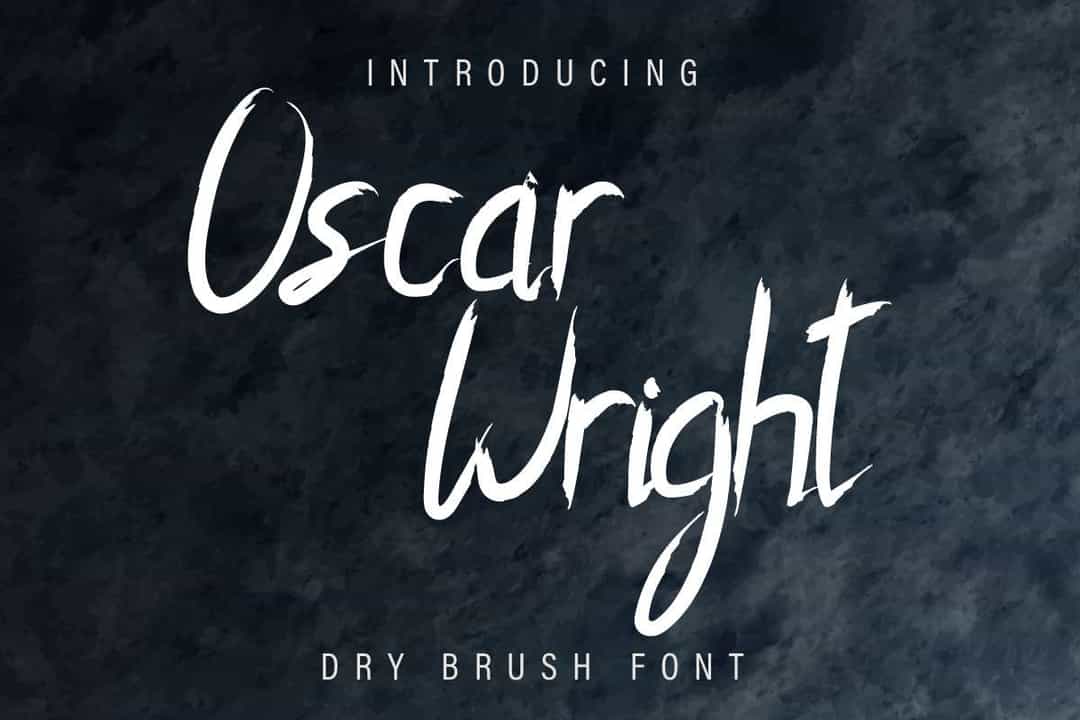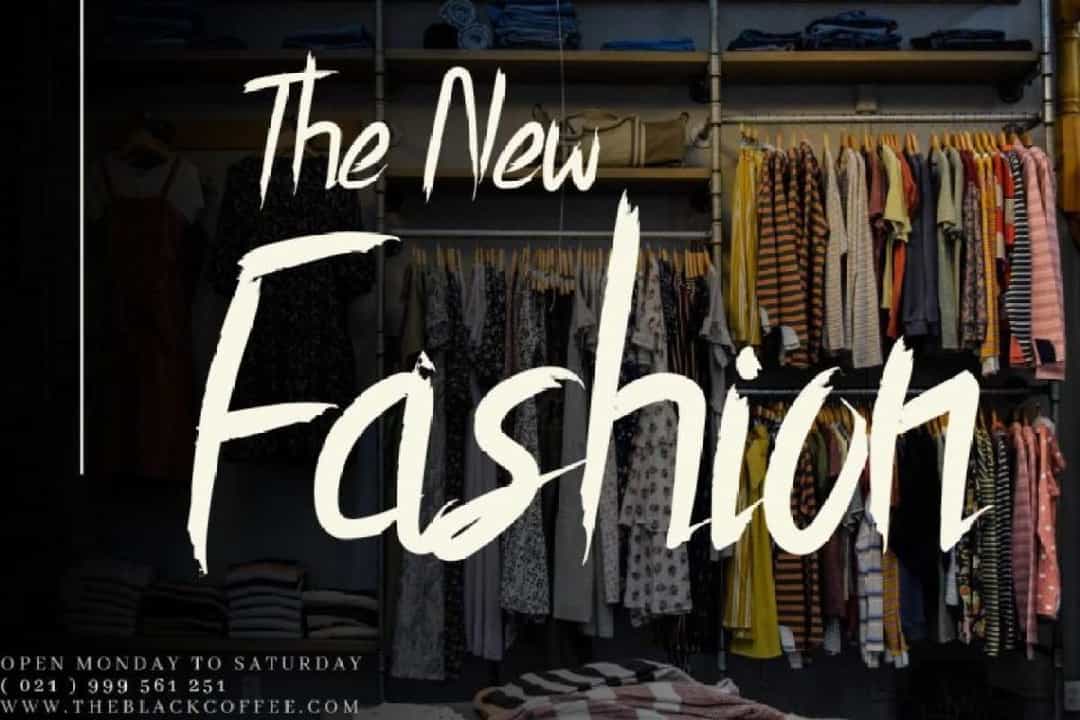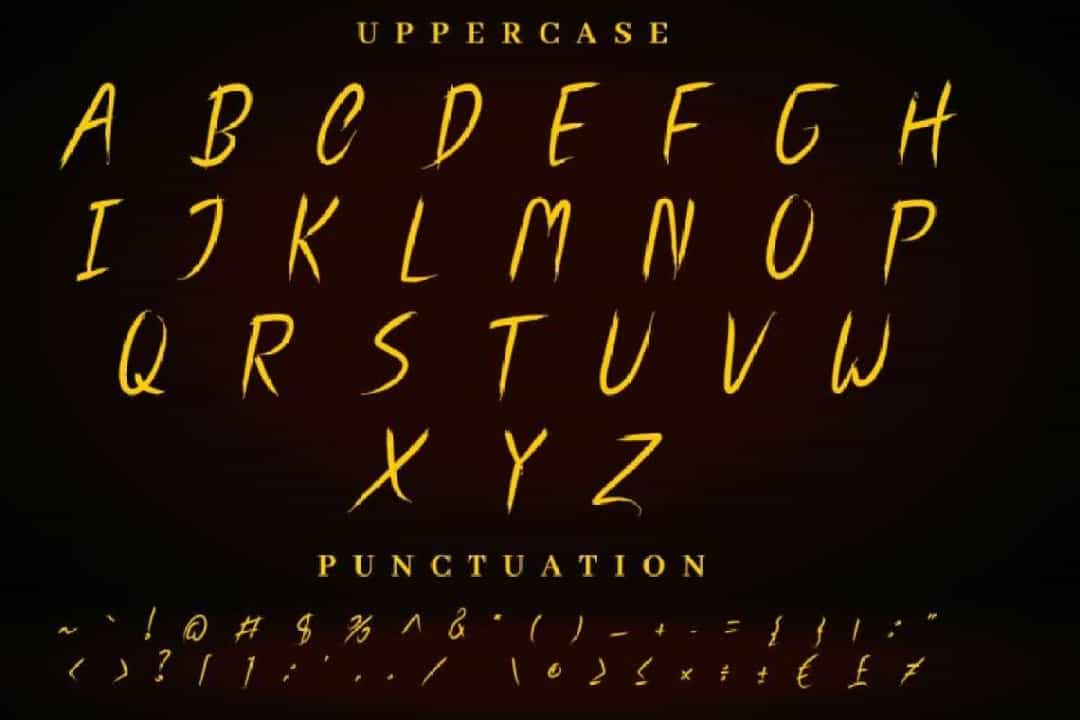
Oscar Wright is an unique script typeface that has a Dry rough brushes. This font features a stunning characters set, flawlessly managed with kerning and spacing that is well-placed. The style of this font is scary, creepy, film games, vintage music, film, band and more.